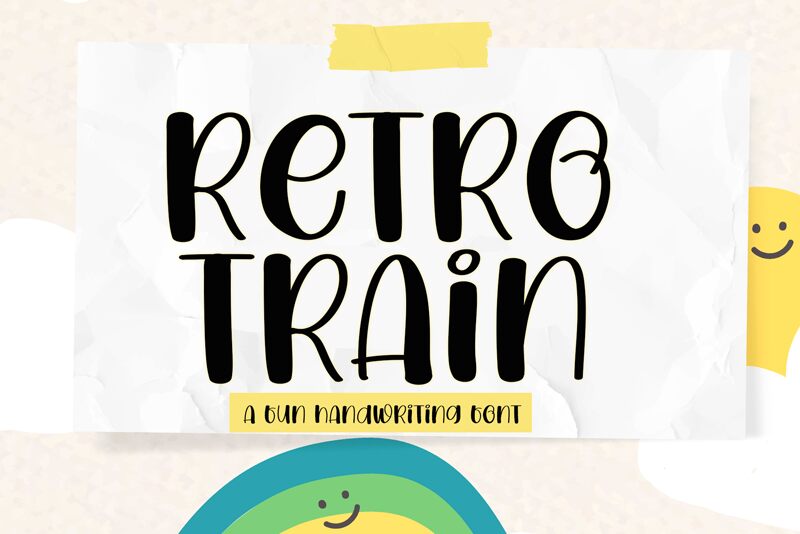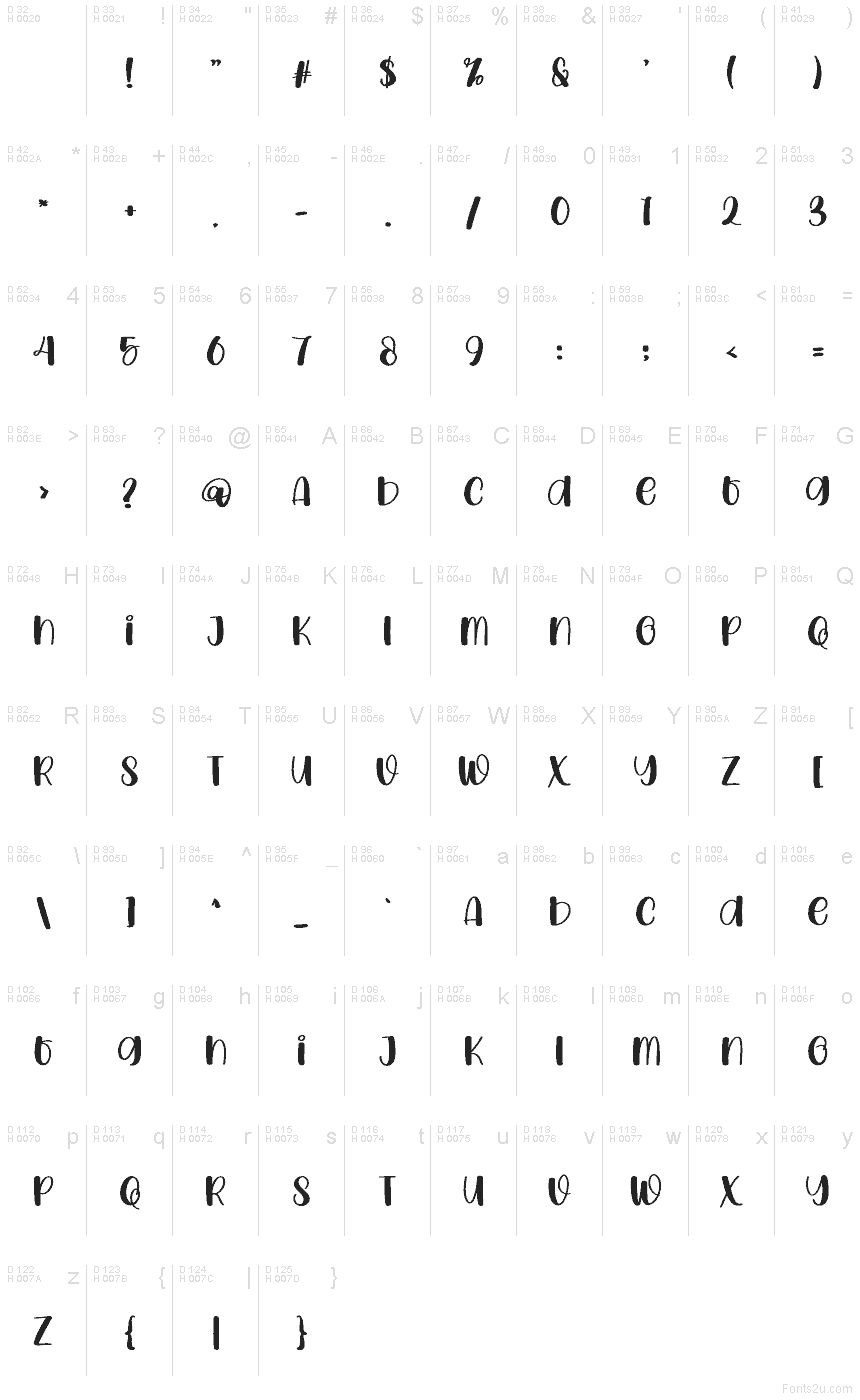
Retro Train
Retro Train font is a free brush handwritten font with classy calligraphic influences, designed and published by creatype designer. A whimsical and casual appearance is evident in the seamless style of the letters which easily captures attention. This is where its versatility will shine through, allowing any artist or designer to transform their visions into unique projects.
Retro Train is meant not only for letterheads and titles but also for branding designs, blog titles, social media posts, titles of children’s books, typographic artwork posters, logos, stationery writing, banners as well as brochures.